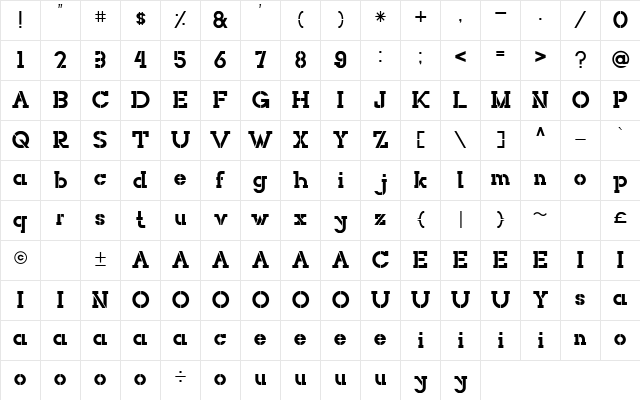
NORTHCLIFF Stencil Free Font
NORTHCLIFF Stencil
Style: Stencil
Foundry: Edric Studio
Designer: M Nouval
Design Context for NORTHCLIFF
NORTHCLIFF borrows the utilitarian aesthetic of stencil lettering, with its characteristic cutaways and no-frills construction lending an industrial edge.